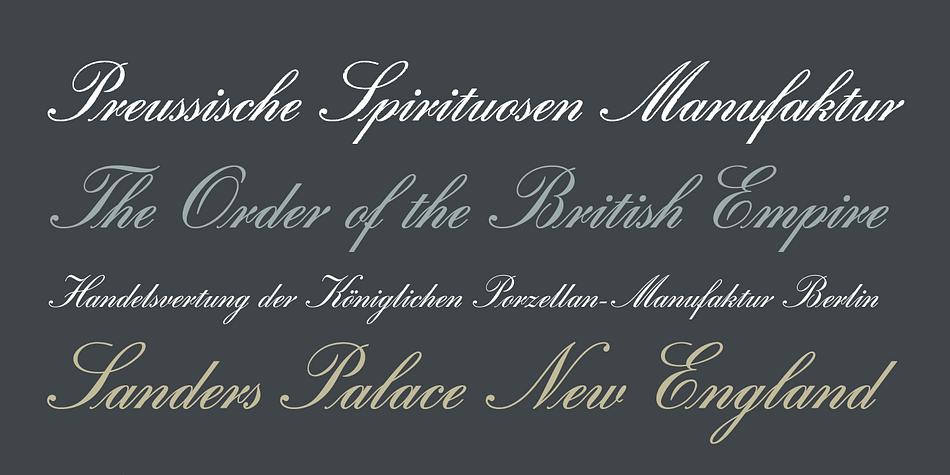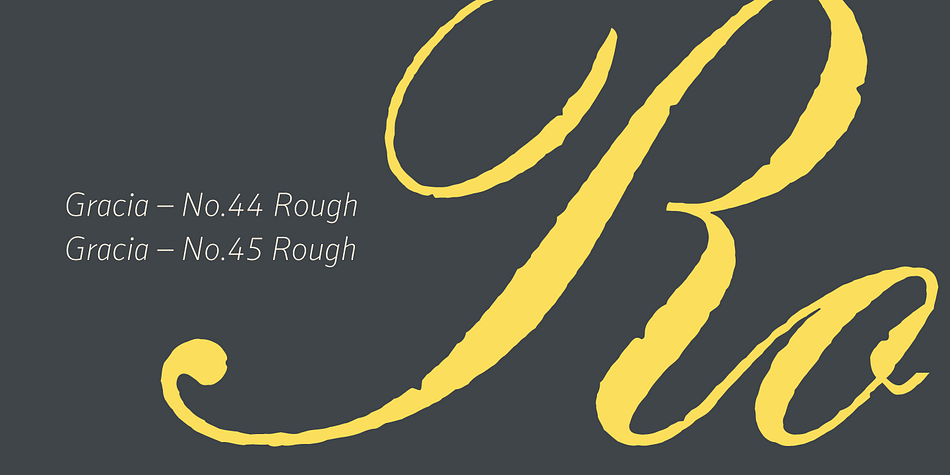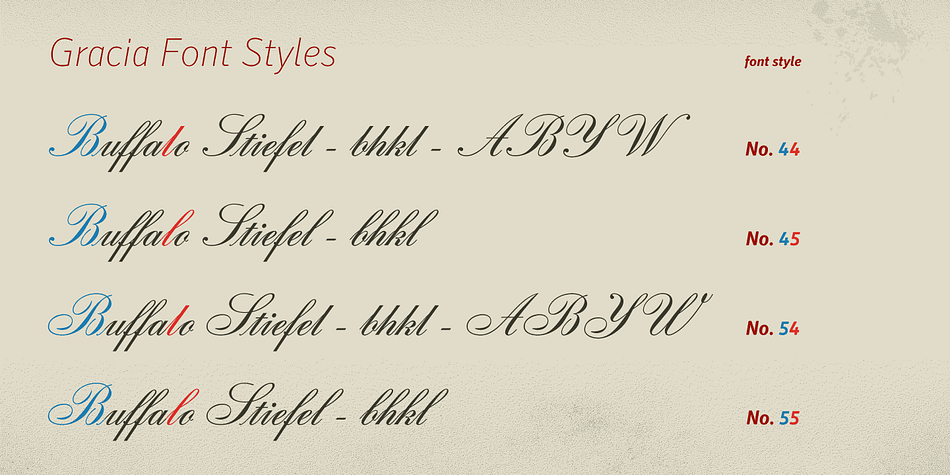
Designed by Andreas Seidel, Gracia is a script font family. This typeface has seven styles and was published by Astype.
Gracia is a classic connected script design. The difference between the styles x5 and x4 is the bowl at the lower case letters b, h, k, l. Gracia Solo No. 44 is a special version - having lost the connection forms without losing the typical look of english script. You can use this font with letter spacing / tracking.